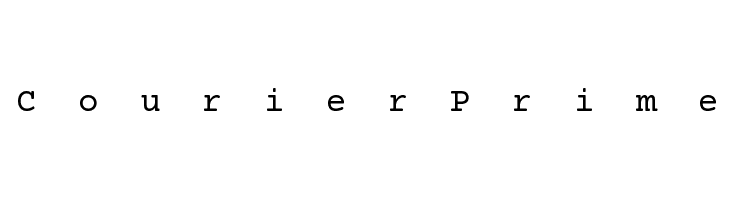
A monospaced font with a classic typewriter style, offering clarity and uniformity.
A monospaced font with a classic typewriter style, offering medium contrast and uniform character width.